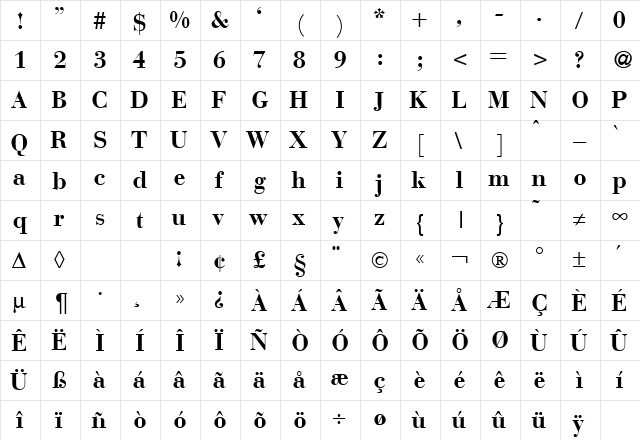
BodoniRecut Bold
Design Context for BodoniRecut Typeface
BodoniRecut offers clean, dependable letterforms without strong stylistic allegiance, making it a practical choice for designers who need flexibility. Its bold stroke weight gives it real presence on the page.
Pro Tip: Use BodoniRecut in both headline and body roles to test its range before committing to a single application.